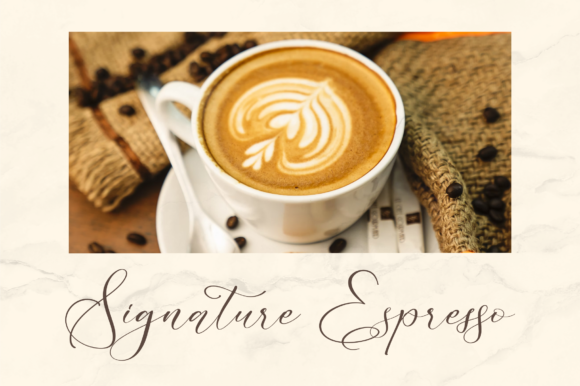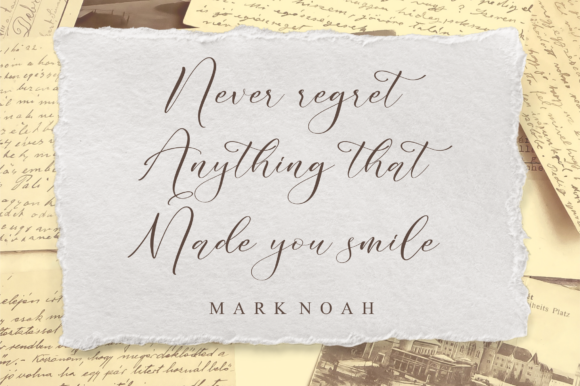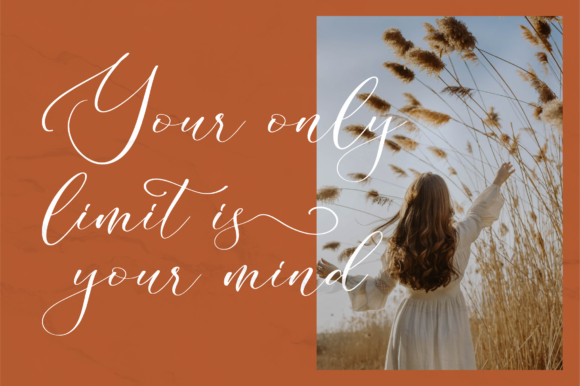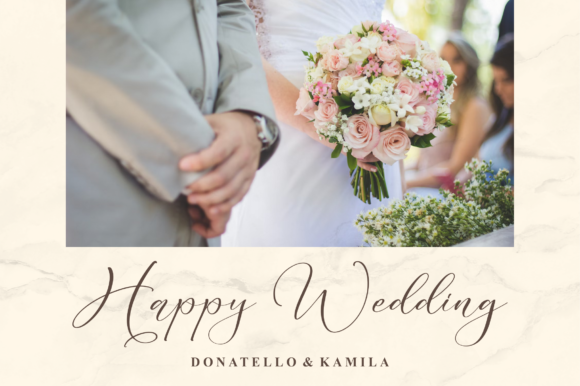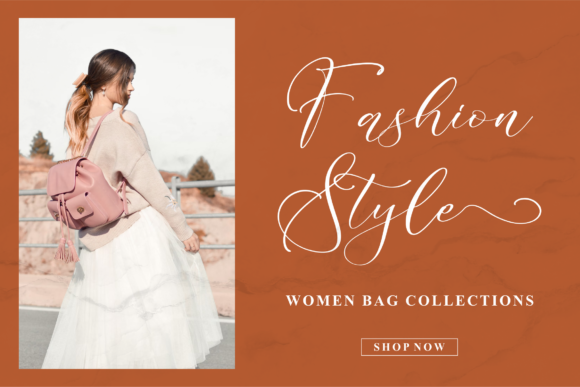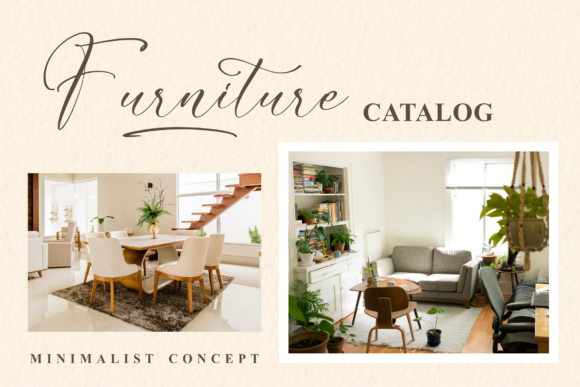
Dantony Holanda Font: Elevate Your Designs with Elegance and Sophistication
In the world of typography, a well-chosen font can make all the difference in transforming a design from ordinary to extraordinary. For designers and crafters seeking a stylish and dainty script font to elevate their projects, Dantony Holanda Font is an exceptional choice. This beautiful script font is designed to add a touch of elegance and sophistication to a wide range of projects, from logos and branding to labels, photography, and more.
What Makes Dantony Holanda Font Special?
Dantony Holanda Font is a stunning script font that boasts a unique blend of style and versatility. Its delicate and refined appearance makes it perfect for projects that require a touch of luxury and refinement. Whether you’re working on a logo, branding project, or simply looking to add a personal touch to your designs, this font is sure to impress.
One of the standout features of Dantony Holanda Font is its PUA (Private Use Area) encoding. This means that users can access all the glyphs and swashes with ease, allowing for greater flexibility and creativity in design. With PUA encoding, you can effortlessly navigate the font’s extensive character set, including alternates, ligatures, and swashes, to create unique and visually stunning text arrangements.
Ideal for a Variety of Projects
Dantony Holanda Font is an incredibly versatile font that can be used in a multitude of projects. Some of the ideal applications for this font include:
- Logos and Branding: Create a lasting impression with a custom logo that exudes elegance and sophistication.
- Label Design: Add a touch of refinement to your product labels, making them stand out on store shelves.
- Photography: Use Dantony Holanda Font to create beautiful watermarks or add captions to your photos.
- Special Events: Make your event invitations, programs, or signage truly special with this stunning script font.
- Crafting and DIY Projects: Add a personal touch to your handmade crafts, such as journals, planners, or gift tags.
Why Choose Dantony Holanda Font?
With so many fonts available, why choose Dantony Holanda Font? Here are just a few reasons why designers and crafters love this font:
- Unique and Eye-Catching: Dantony Holanda Font is a one-of-a-kind script font that will set your designs apart from the rest.
- Elegant and Refined: This font’s delicate appearance makes it perfect for projects that require a touch of luxury and sophistication.
- Easy to Use: With PUA encoding, accessing the font’s glyphs and swashes is a breeze, even for those without extensive design experience.
- Highly Versatile: Use Dantony Holanda Font in a wide range of projects, from logos and branding to labels, photography, and more.
In conclusion, Dantony Holanda Font is a beautiful and versatile script font that is perfect for designers and crafters seeking to add a touch of elegance and sophistication to their projects. With its PUA encoding, unique character set, and delicate appearance, this font is sure to become a staple in your design arsenal. Whether you’re working on a logo, branding project, or simply looking to add a personal touch to your designs, Dantony Holanda Font is an exceptional choice.